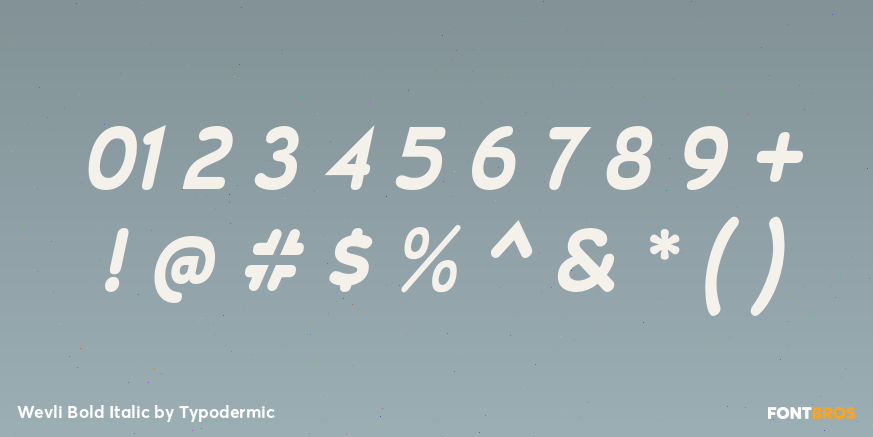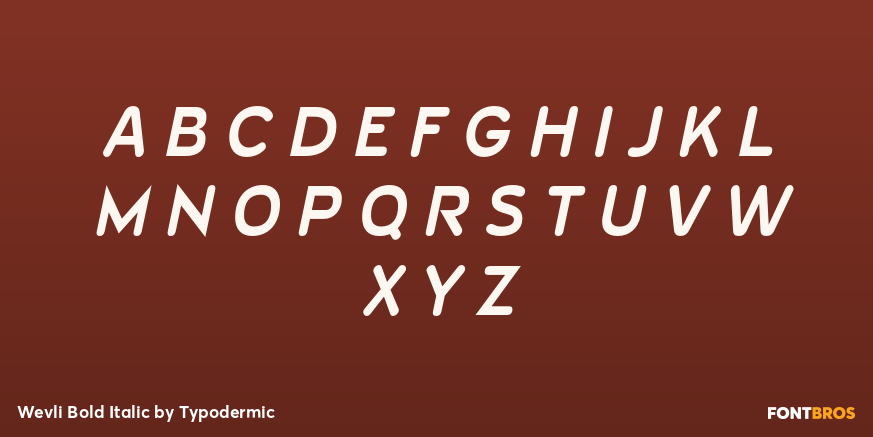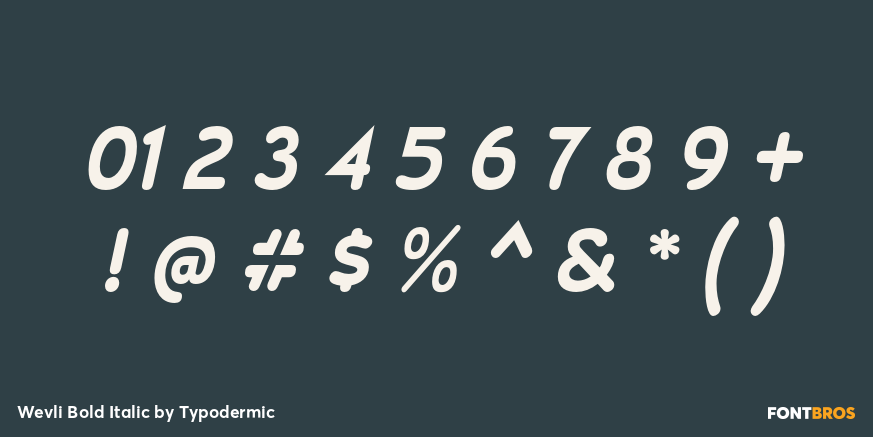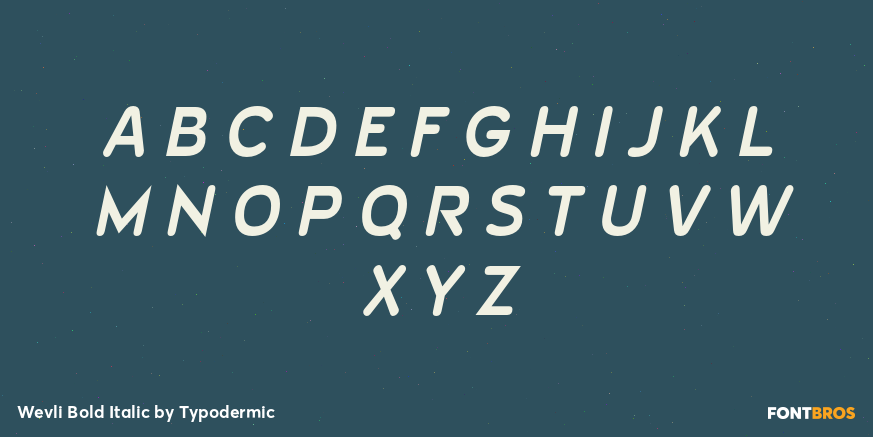
Wevli Bold Italic
Recreating turn-of-the-millennium design can be harder than it looks. The period is now remembered through its loudest ingredients: chrome, bubbles, pixels, liquid lettering, and aggressively futuristic interfaces. But much of the visual world around those things was more ordinary. Shopping centres, fast-food counters, portable electronics, youth magazines, arcades, and software packaging needed typography that felt new without looking like science fiction. Wevli comes from that less exaggerated side of the era.
Its geometric sans-serif structure mixes rounded forms with abrupt corners and angled cuts. Curves can feel soft and casual one moment, then terminate with surprising precision the next. That tension gives Wevli a lightly technological character without tying it to terminals, pixels, machinery, or any single futuristic convention. Because the design itself comes from the turn of the millennium, it carries the period’s particular mixture of informality and geometric experimentation without reconstructing it from contemporary Y2K clichés.
That makes Wevli especially useful for period props and fictional brands. Films, games, exhibitions, and television productions set around the era need more than spectacular title lettering; they need the everyday commercial layer that makes the setting convincing. Wevli can handle fictional restaurant signs, mall promotions, arcade graphics, sporting-goods brands, portable-electronics packaging, magazine advertisements, software boxes, menu boards, and product labels without making every object look knowingly retro.
The same visual language works naturally for casual food and recreation: burger and sandwich shops, pizza counters, snack packaging, bowling alleys, roller rinks, arcades, laser-tag centres, and skate shops. It also suits early-digital subjects such as handheld games, compact stereos, digital cameras, headphones, game accessories, and translucent-plastic gadgets.
Wevli is useful beyond display words. Its relatively conventional skeleton and open spacing let it carry menu descriptions, package blurbs, exhibition captions, magazine standfirsts, game dialogue, and other short passages while preserving more character than a neutral supporting sans. Condensed styles extend that vocabulary into narrow signs, labels, price information, and compact promotional layouts. Wevli is at its best when a design needs the commercial atmosphere of the turn of the millennium rather than its most obvious clichés.